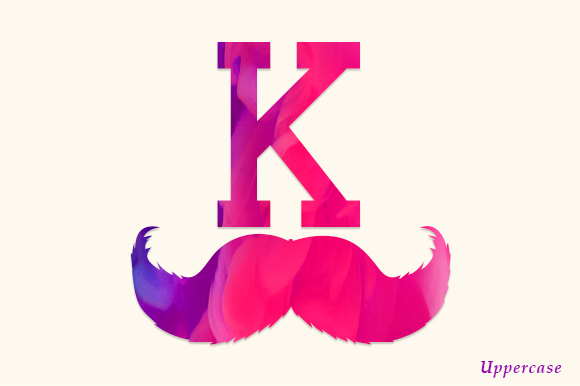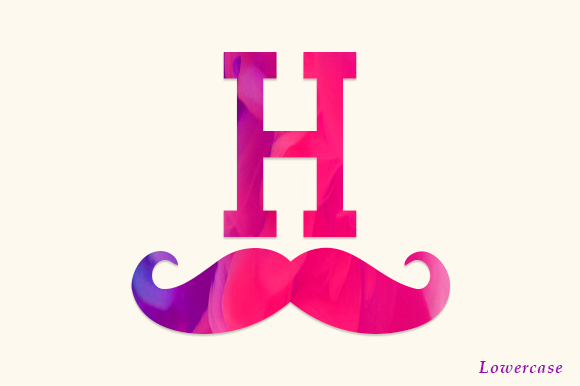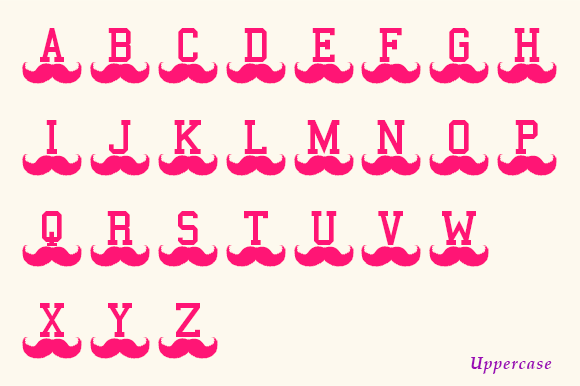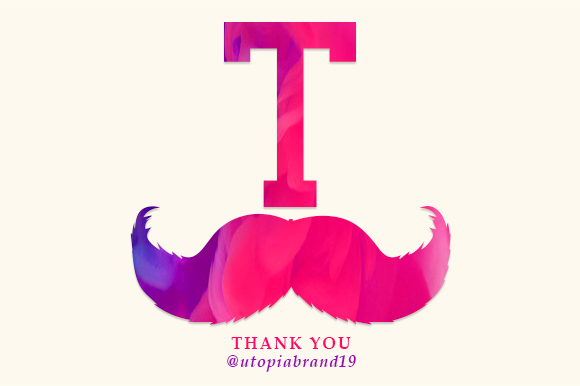
Introduction to Mustache Monogram Font
Have you ever stared at a blank design canvas, struggling to find the perfect font to bring your creative project to life? We’ve all been there, haven’t we? It’s like trying to pick a favorite child – every option seems perfect until you start to imagine the final result. But then, it happens – you stumble upon that one font that makes everything click. For designers, discovering the right font can be the key to unlocking a whole new level of creativity and inspiration.
One such font that’s sure to capture your heart is the Mustache Monogram Font. This charming decorative font is a design resource that’s waiting to be unleashed in your next project. With its authentic feel and playful charm, it’s the perfect addition to any design that needs a little extra oomph.
Key Features of Mustache Monogram Font
- Unique monogram design with a mustache twist, perfect for creative projects that require a touch of whimsy.
- Perfect for adding a personal touch to wedding invitations, birthday party decorations, and other creative projects that require a unique and eye-catching design element.
Honest Review: Mustache Monogram Font
As a designer, I’m always on the lookout for unique and creative resources to enhance my projects. The Mustache Monogram Font caught my eye with its quirky, vintage vibe, making it perfect for anything from branding to typography-based art.
Here’s what I like about this design resource:
- ✨ Unique and playful lettering style that adds a touch of whimsy to any project
- ✨ Can be easily customized with colors and textures to fit your specific design needs
While I appreciate the Mustache Monogram Font, there are a few limitations to consider:
- ⚠️ Limited character set, which may not be ideal for lengthy text-based projects
The Mustache Monogram Font is a versatile design resource perfect for adding a touch of sophistication to your creative project. This high-quality font features a unique monogram style with a transparent background, making it ideal for use on various backgrounds.
Common Use Cases for Mustache Monogram Font
This font is perfect for creating monogram logos, wedding invitations, and other special occasion designs. You can also use it to add a touch of elegance to your business cards, letterheads, and other marketing materials.